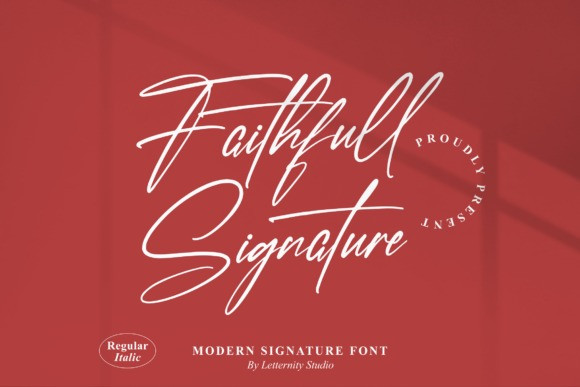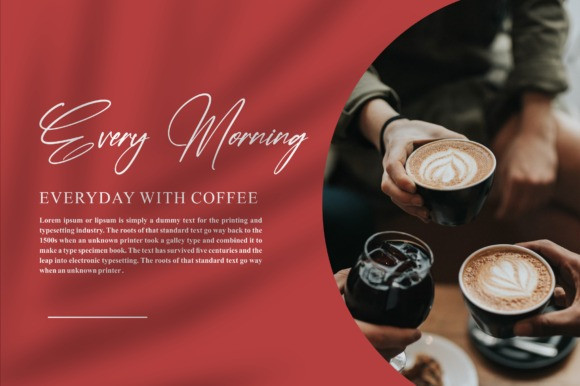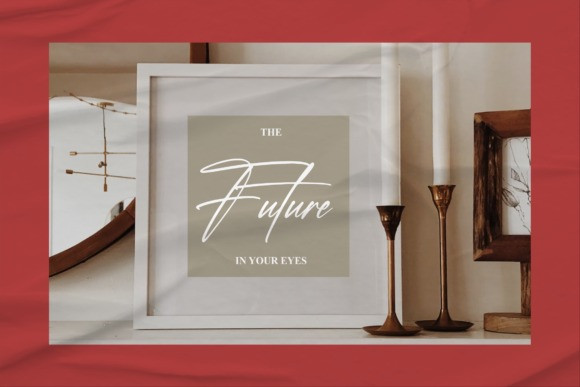
Faithfull Signature Font
Faithfull Signature is a fashionable and delicate script font. It is suitable for any projects such as: logos, branding projects, label, photography, watermark, special events, and all your other lovely projects that need a beautiful script taste.